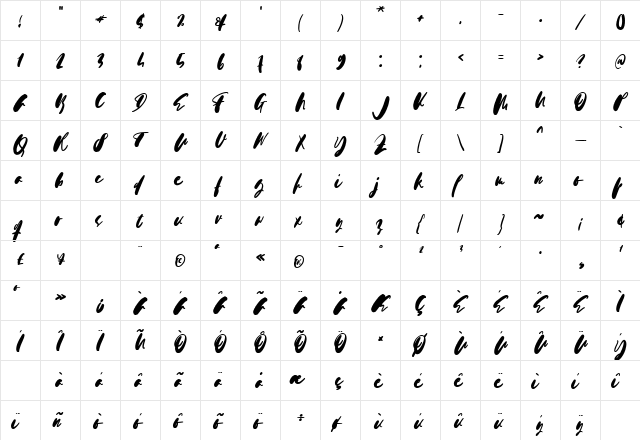
Moderna Script Regular
| Foundry | Colllab Studio |
| Designer | Colllab Studio Team |
Design Context for Moderna Script Typeface
Moderna Script flows with the natural rhythm of handwritten lettering, making it ideal for designs that call for warmth and personal expression.